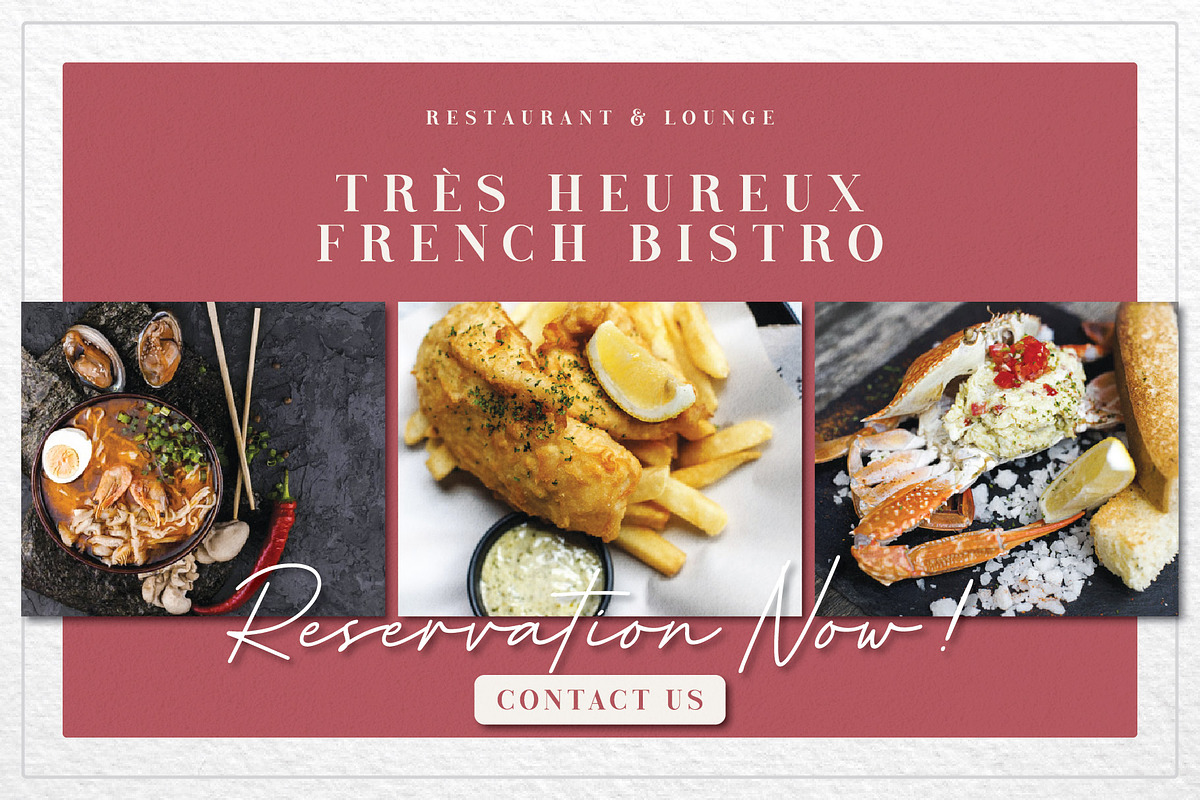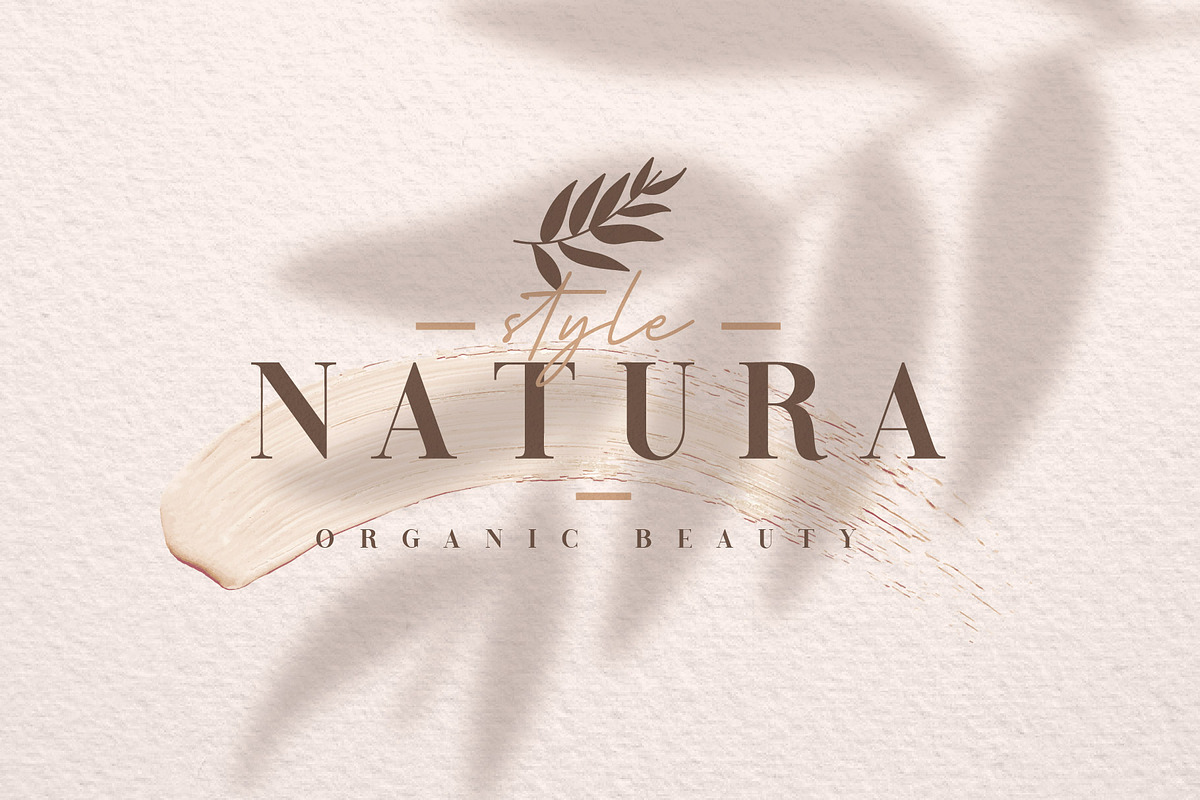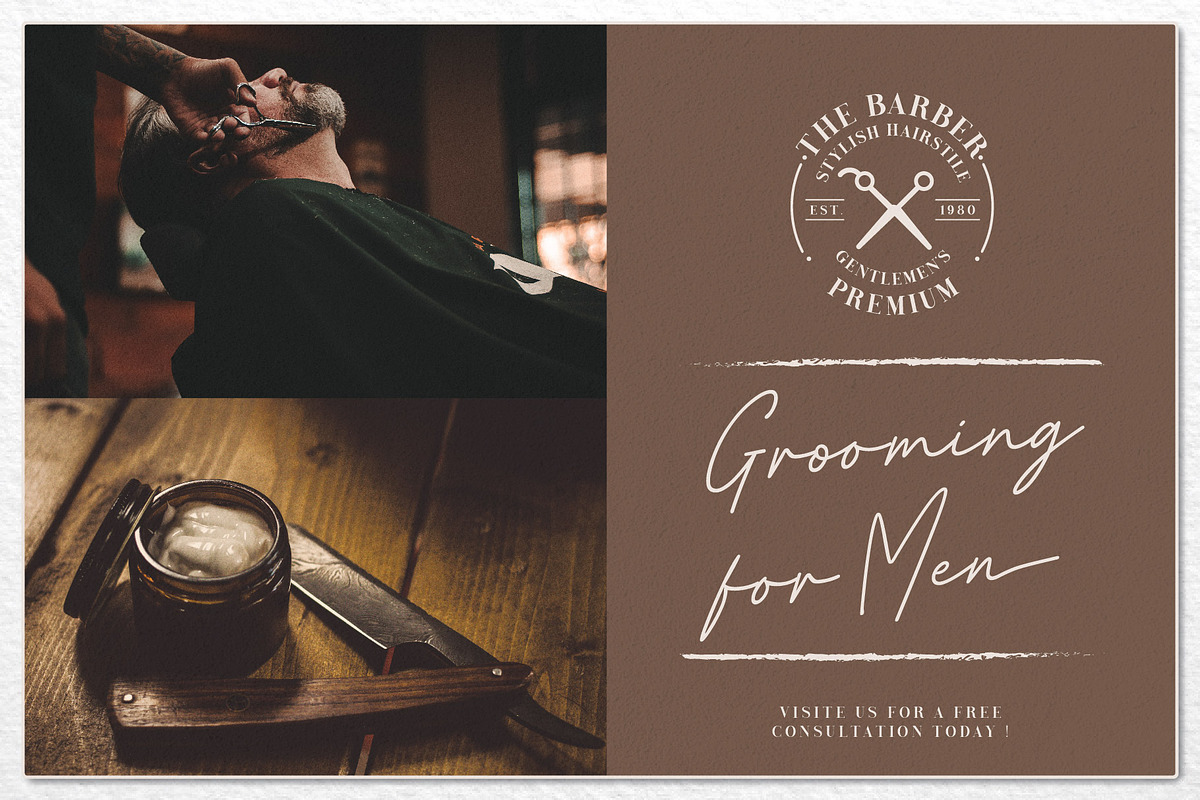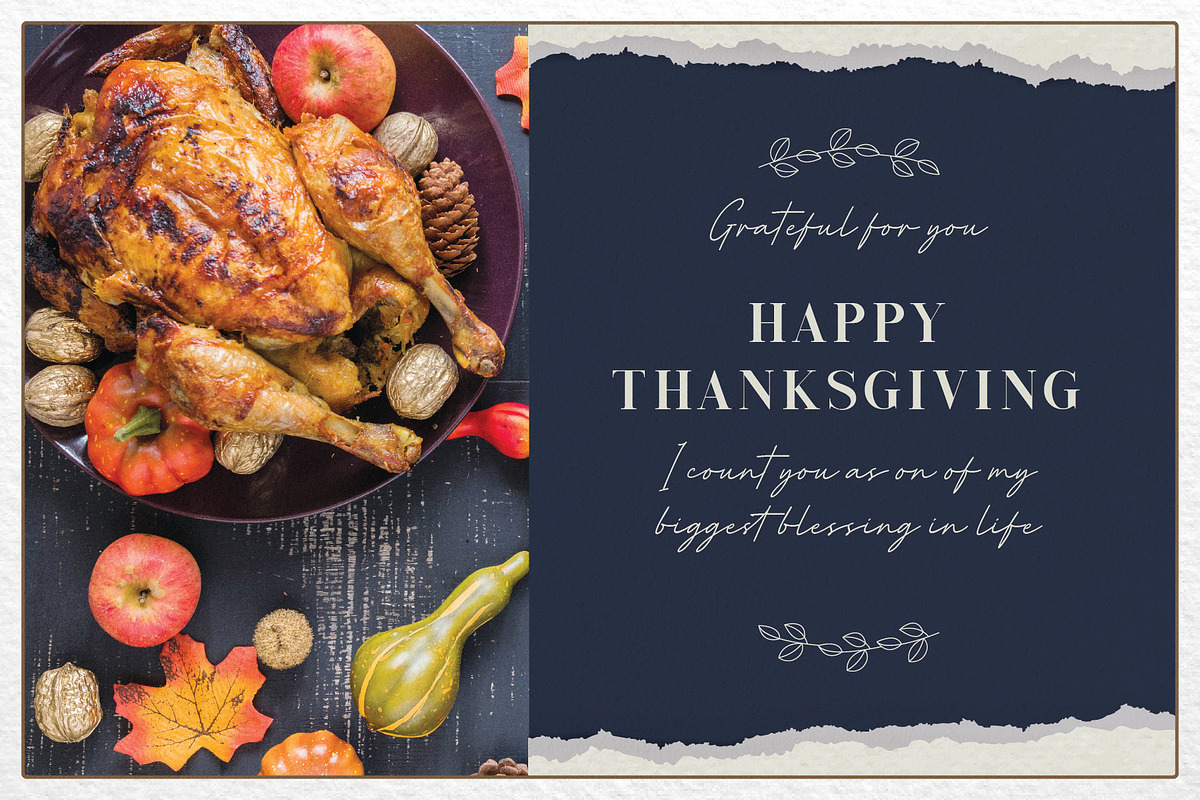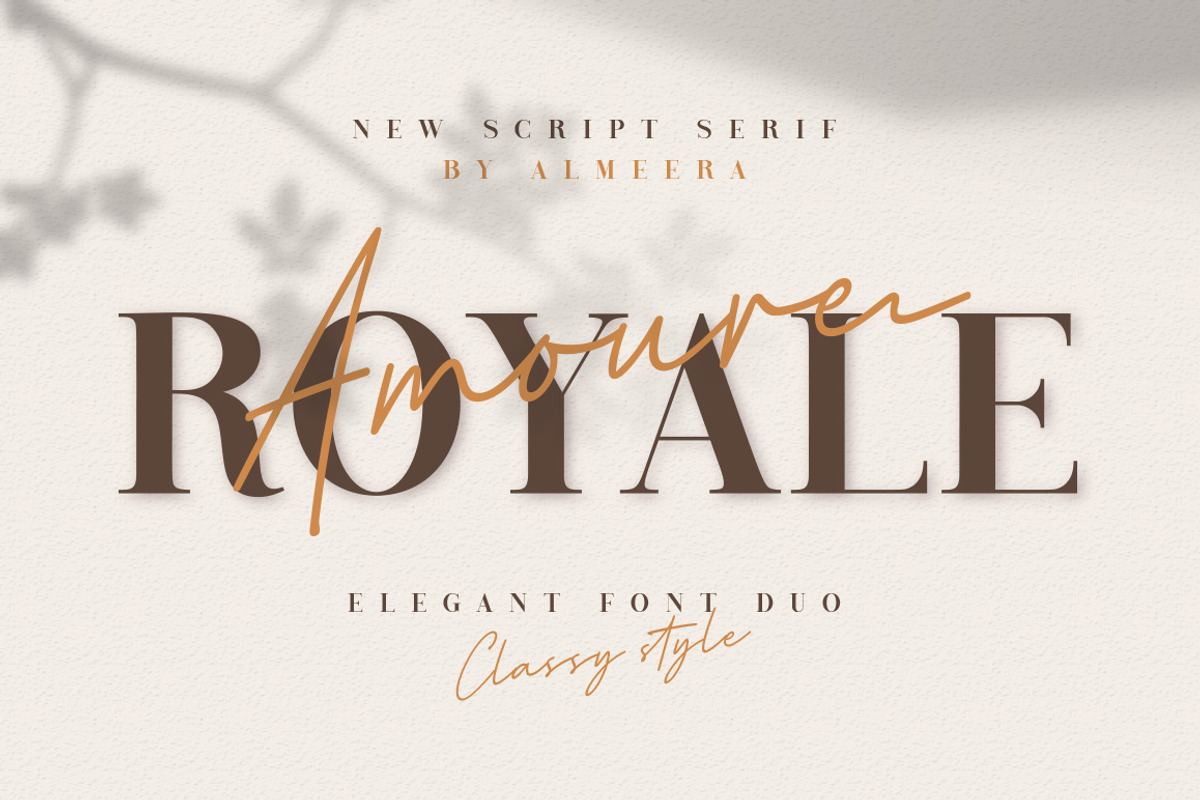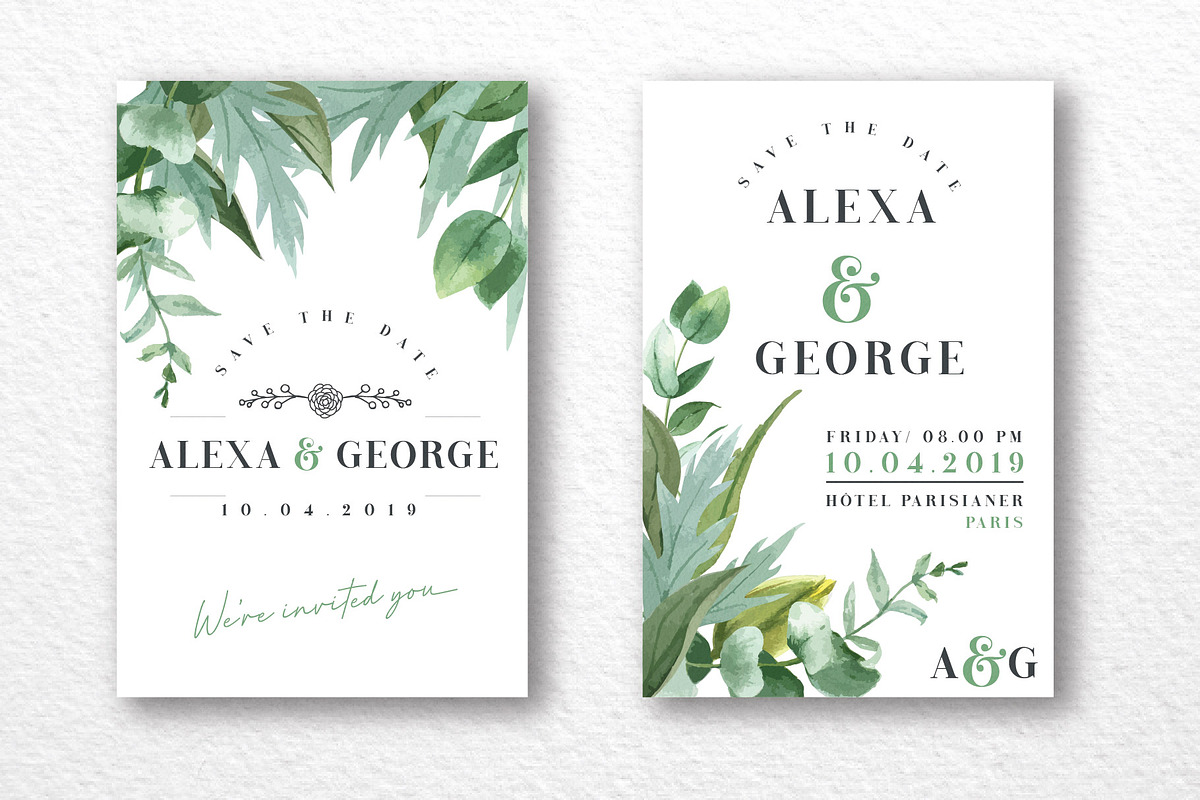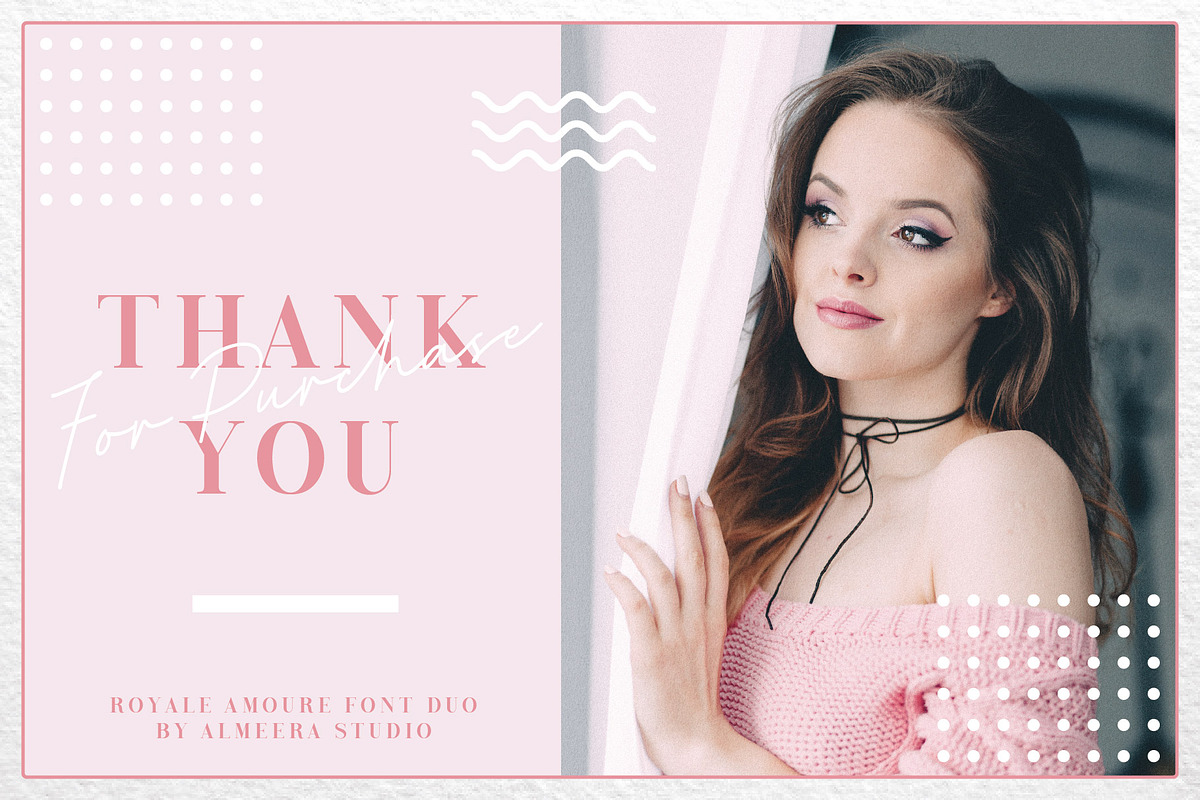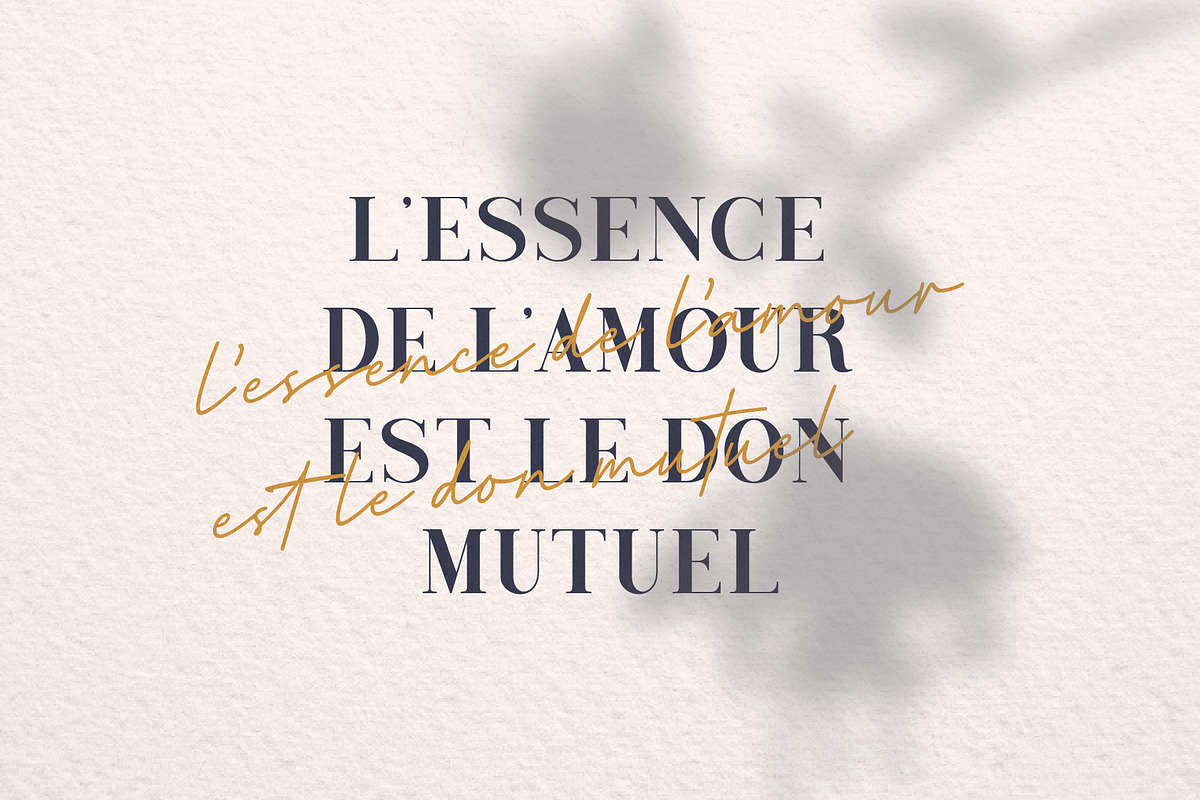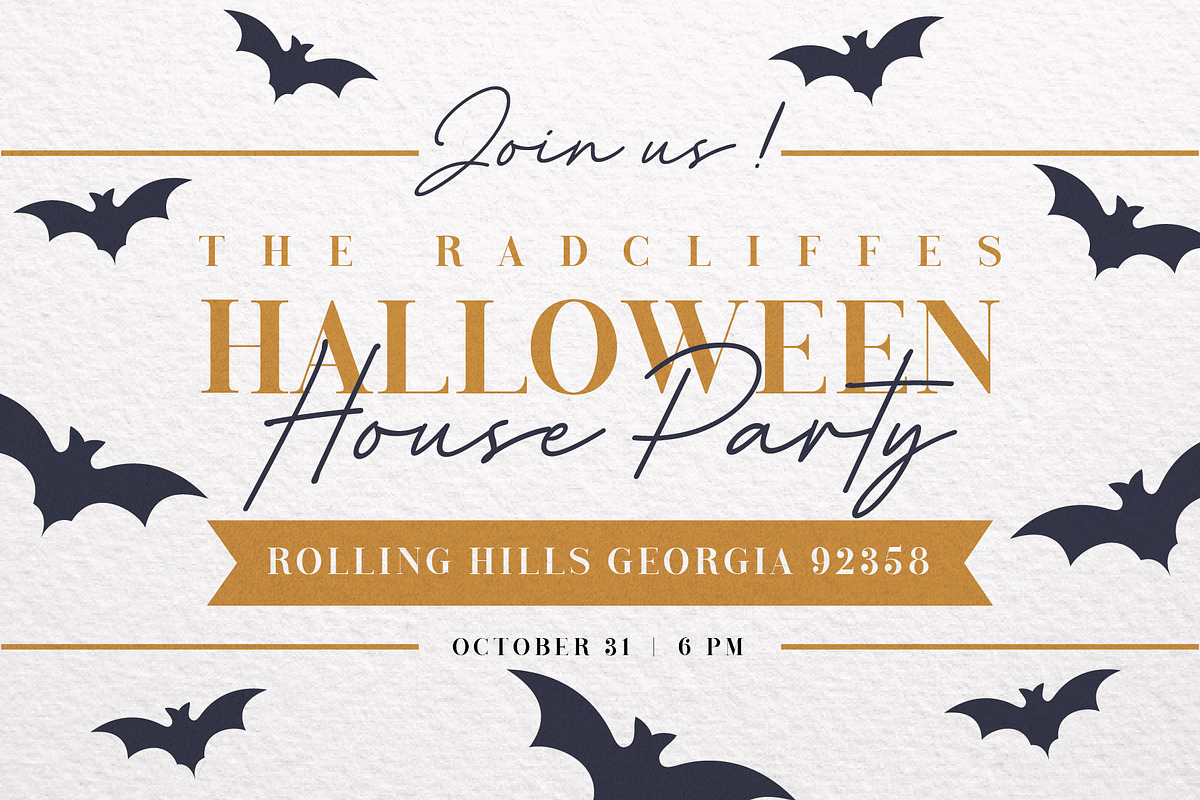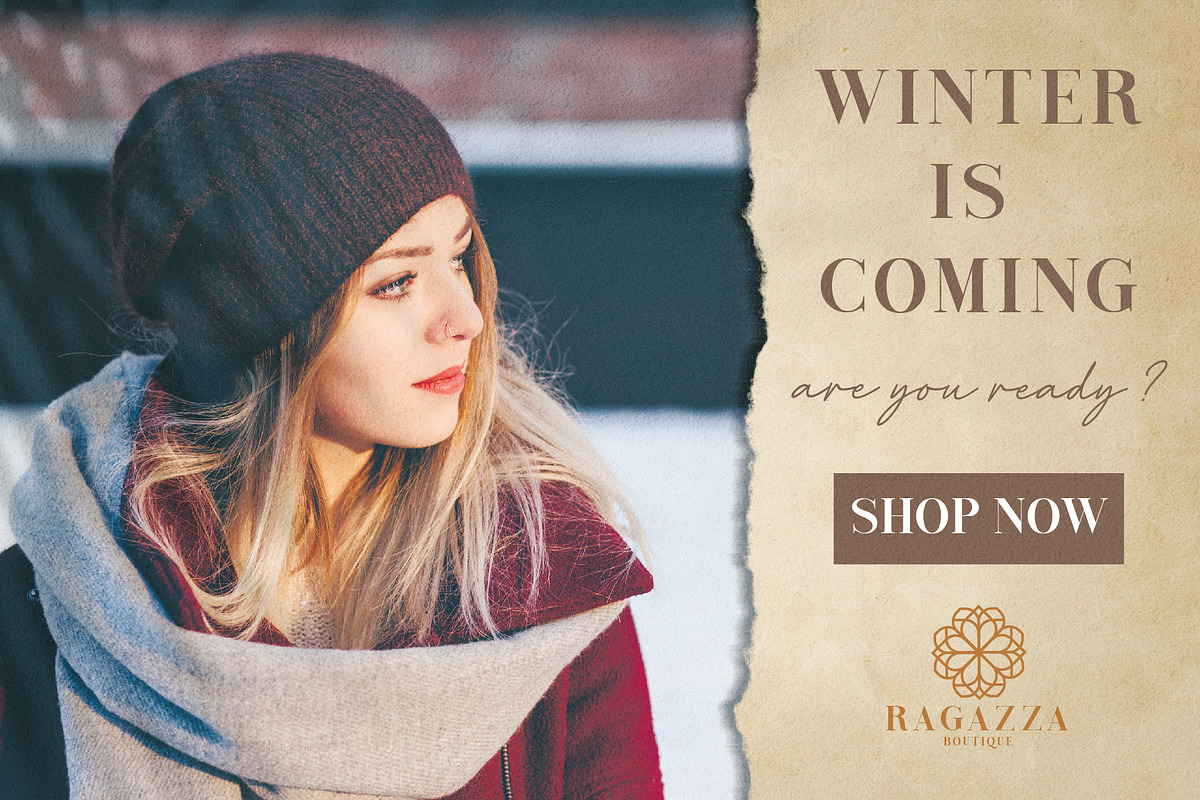
Royale Amoure Font Du
Introducing Royale Amoure Font Duo a elegant ,classy, contemporary pair of script and serif fonts. With a stylish serif font and a free-flowing, expressive script companion.
Royale Amoure offers beautiful typographic harmony for a diversity of design projects, including logos & branding, wedding designs, social media posts, advertisements,signature,watermark & product designs.
Royal Amoure Serif. file include : OTF, TTF, WOFF . An all-caps Serif font containing uppercase, all punctuation, numerals & Multilingual support.
Royal Amoure Script .file include : OTF, TTF, WOFF Script font with uppercase,lowercase,swash,puntuation,numeral & multilingual support.